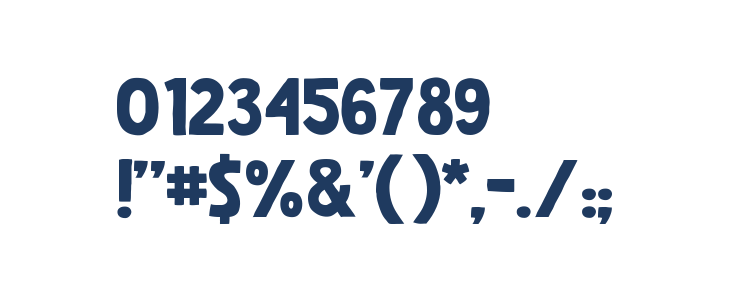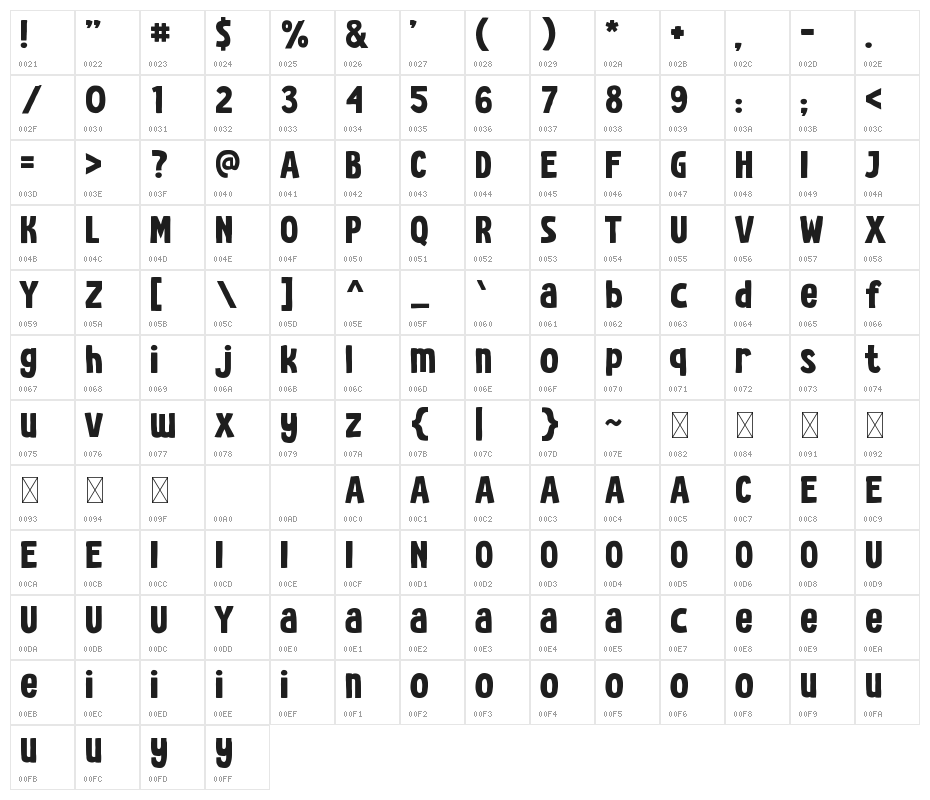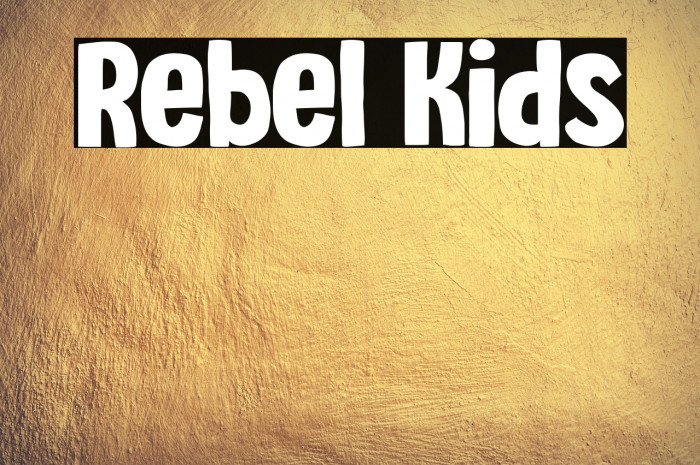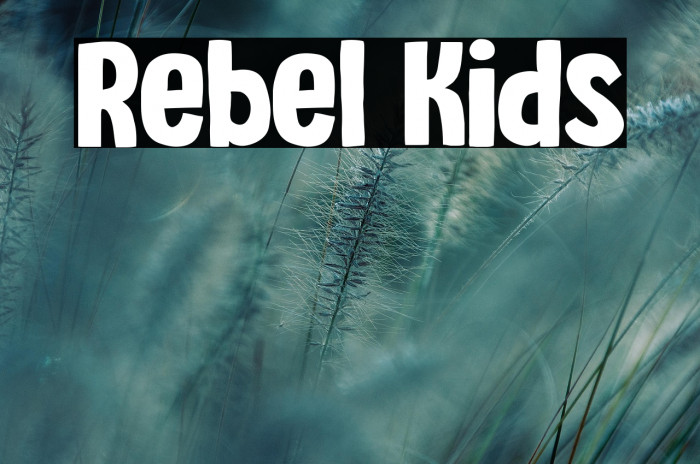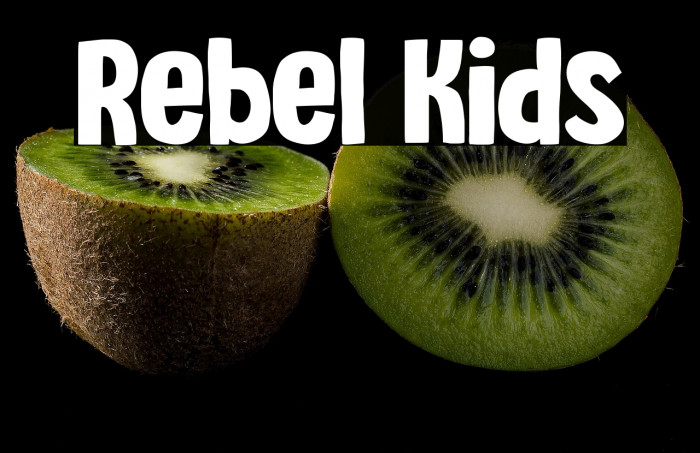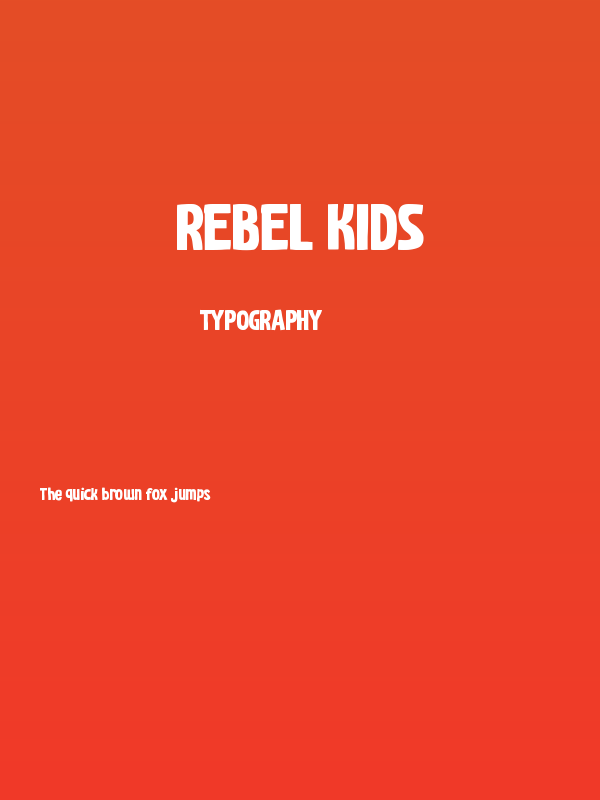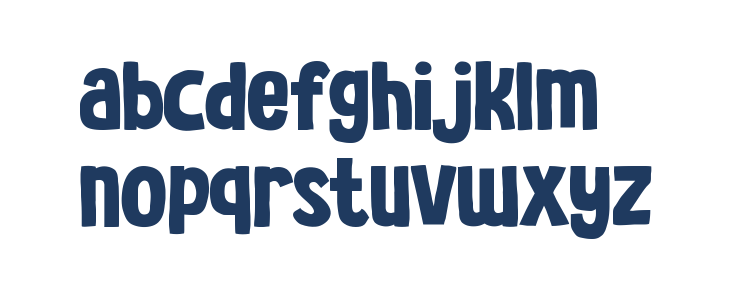
Rebel Kids Font
Rebel Kids Description
This font features a bold and playful style with a slightly irregular and hand-drawn appearance. The characters are thick and rounded, giving them a friendly and approachable look. The uppercase and lowercase letters maintain a consistent weight, while the numbers and special characters complement the overall design. The font's whimsical nature makes it suitable for projects that require a fun and informal touch. Its boldness ensures readability, even at smaller sizes, while the unique character shapes add personality to any text.
| Overall Style | Playful, Hand-drawn |
| Proposed Projects | Ideal for children's books, playful branding, posters, and casual invitations. |